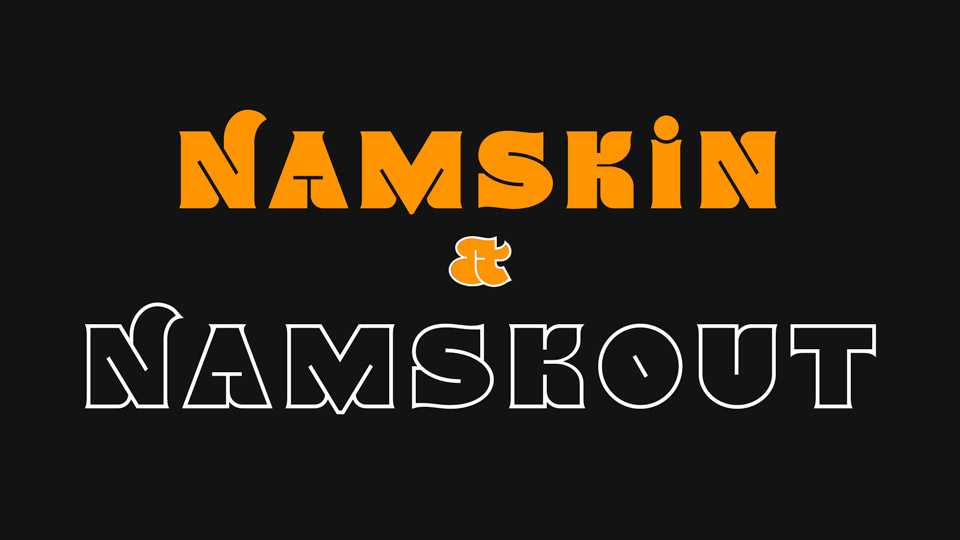
Namskout & Namskin Fonts › Fontesk – Download Grátis
Download Namskout, Namskin and Namskoutin typeface, a family of heavy fonts with a friendly and cute look and Outlined, Solid and Mixed style accordingly. These fonts are perfect for logos, headlines, eye-catching messages, banners, signages, prints and more.
Designer: Grzegorz Luk